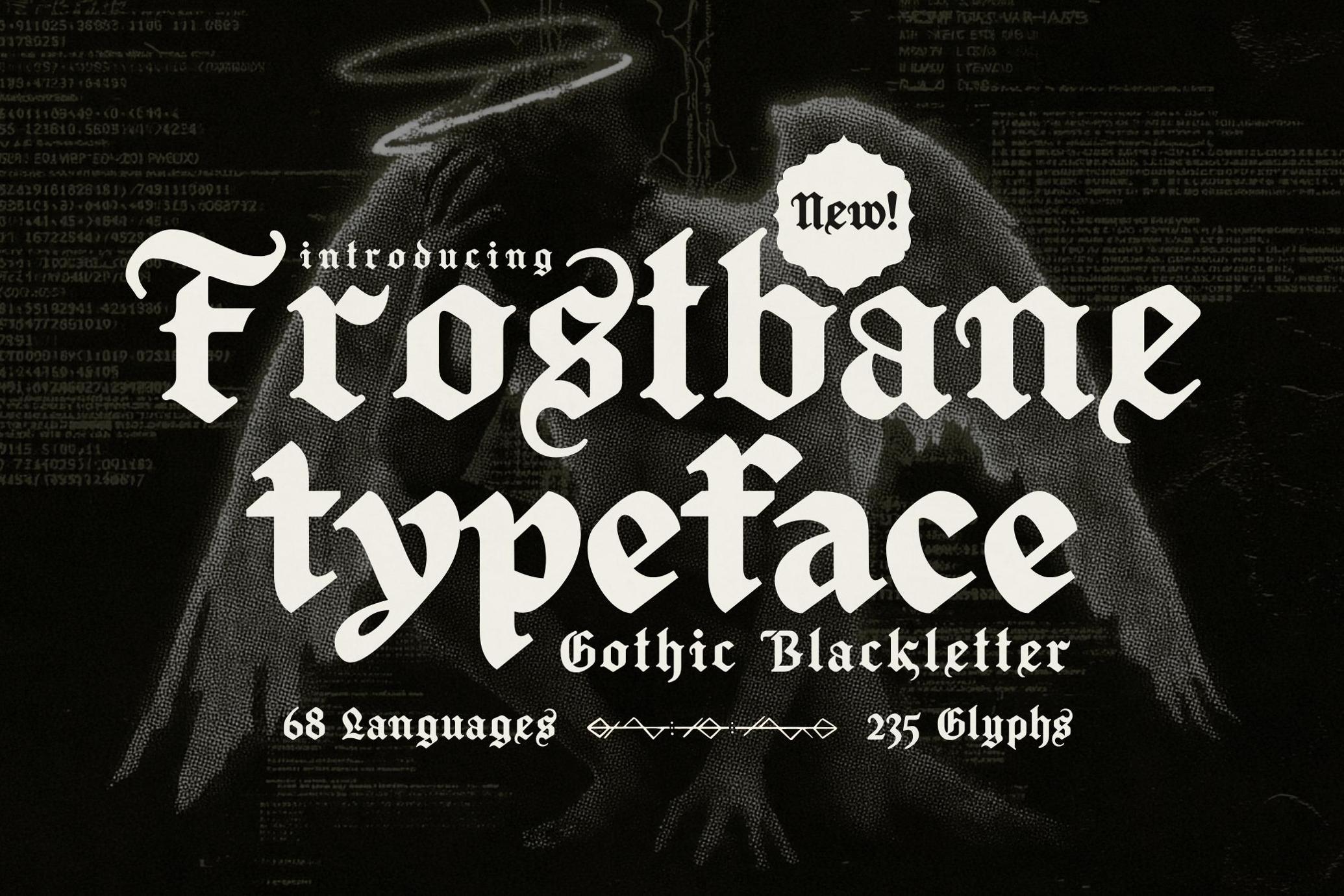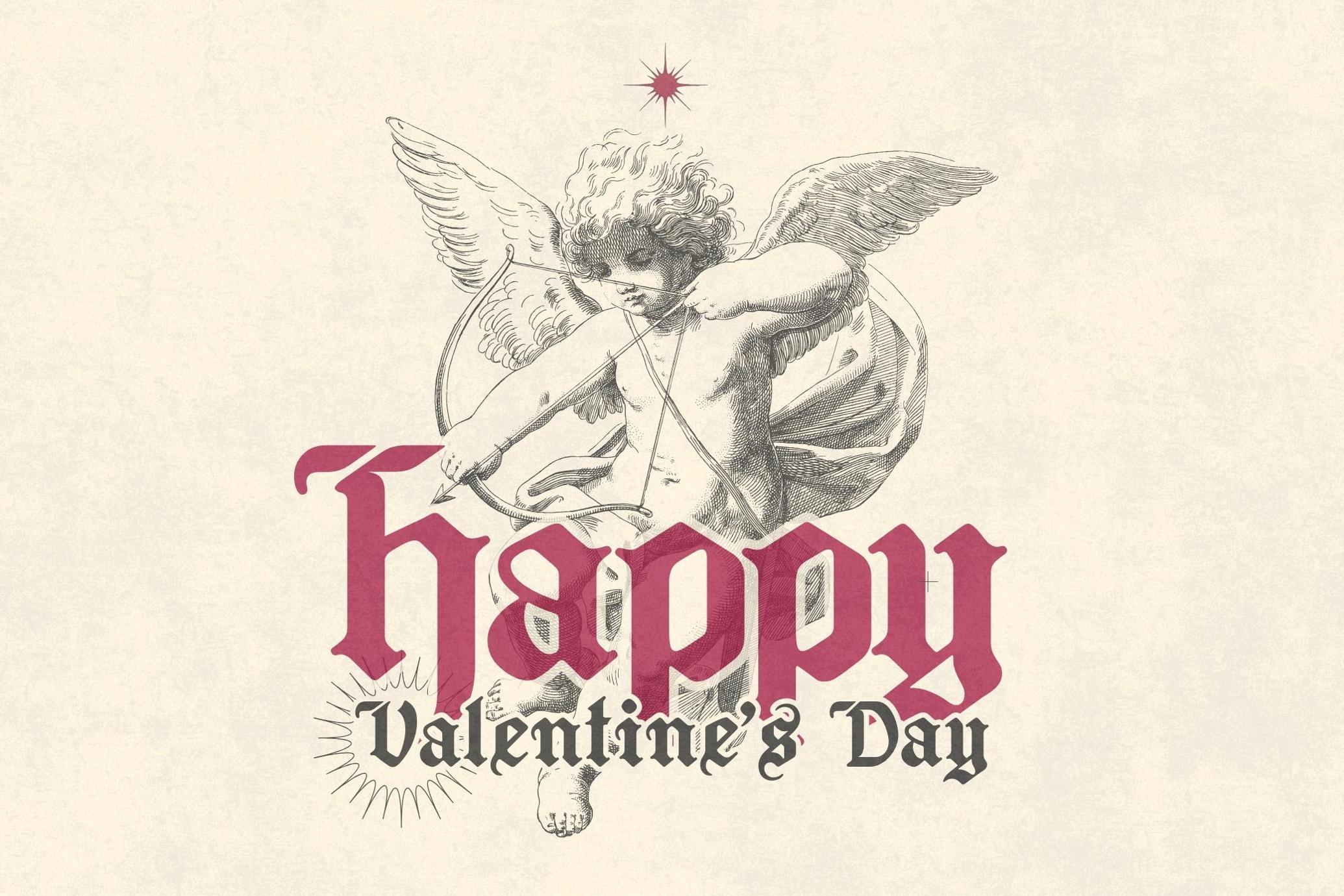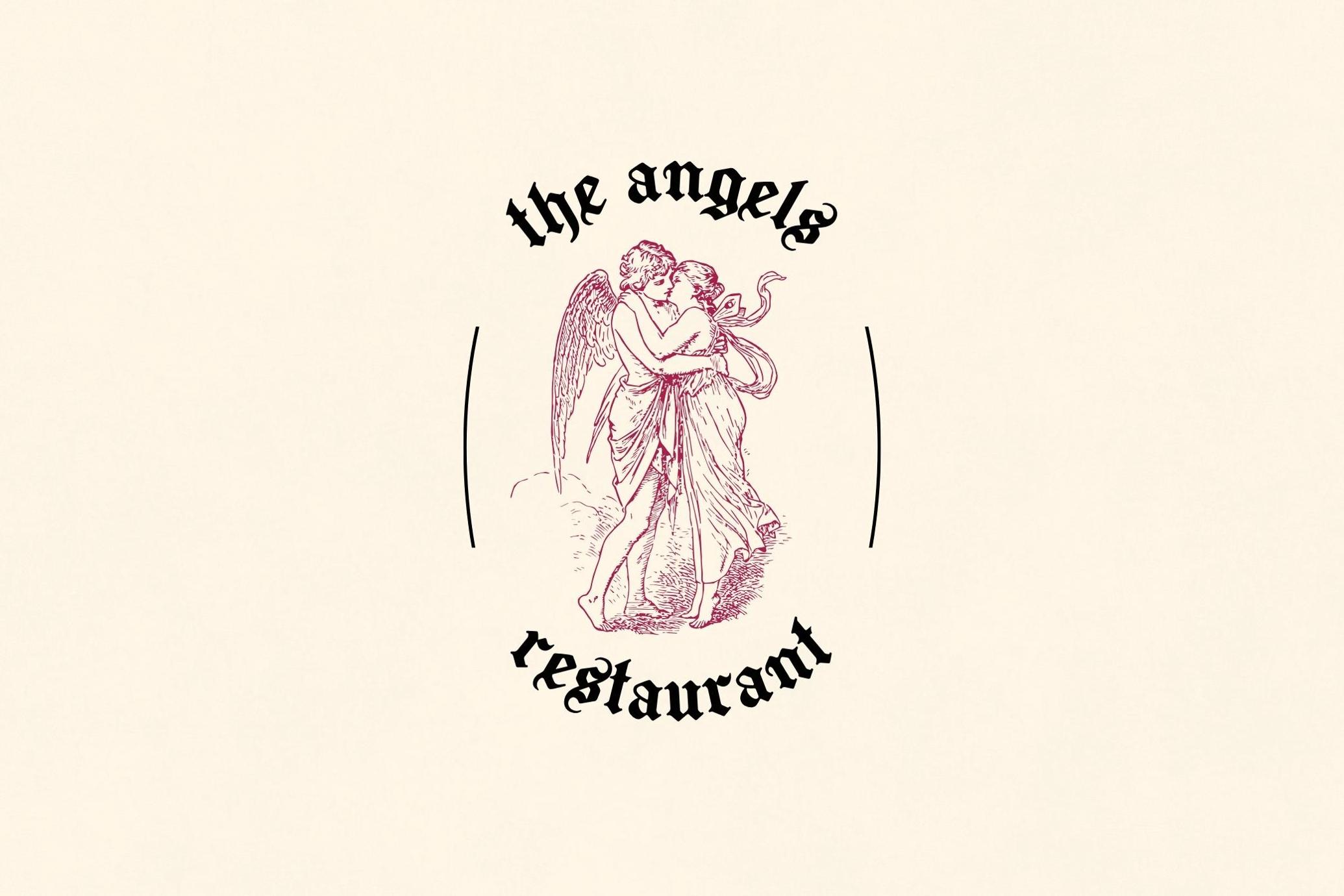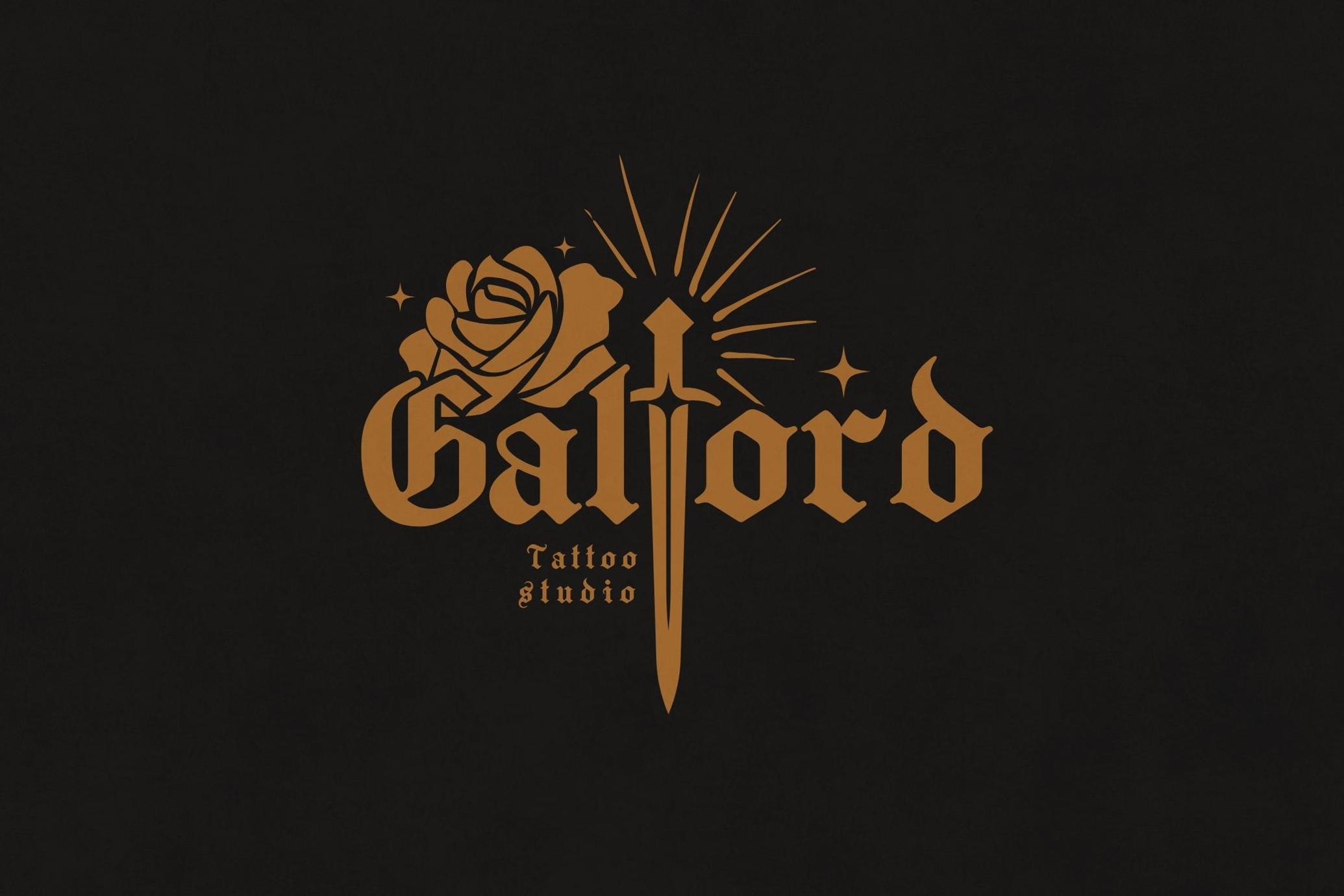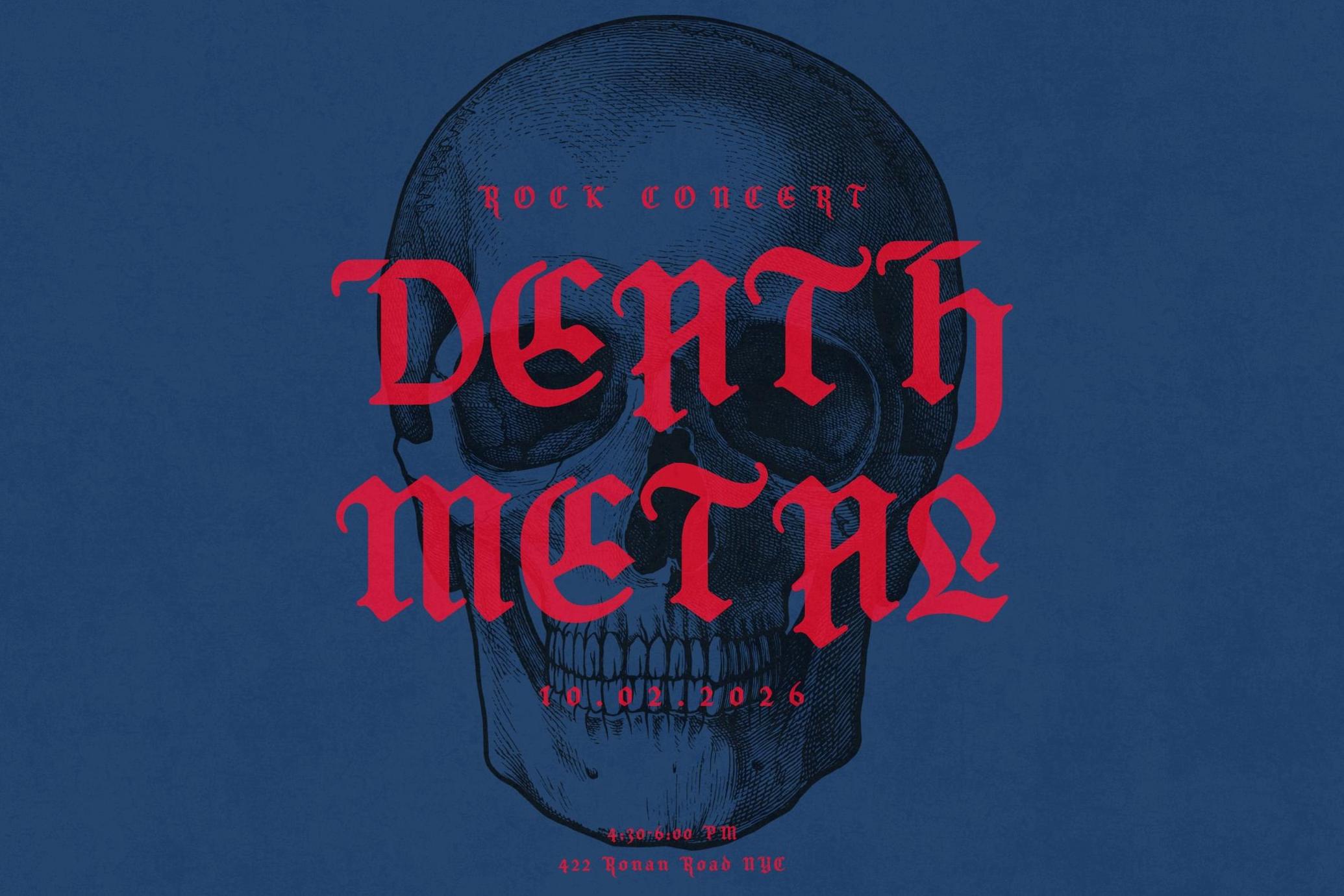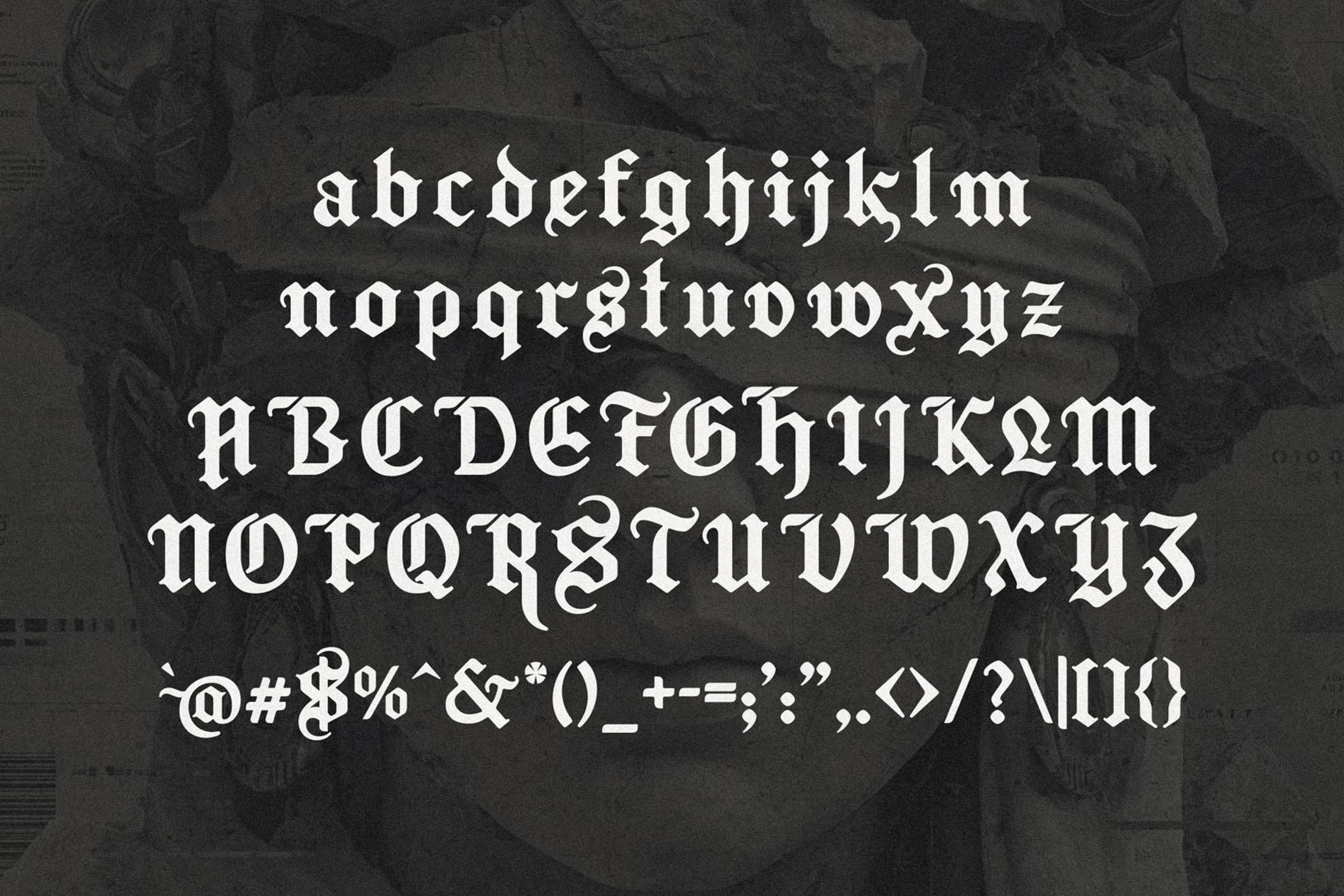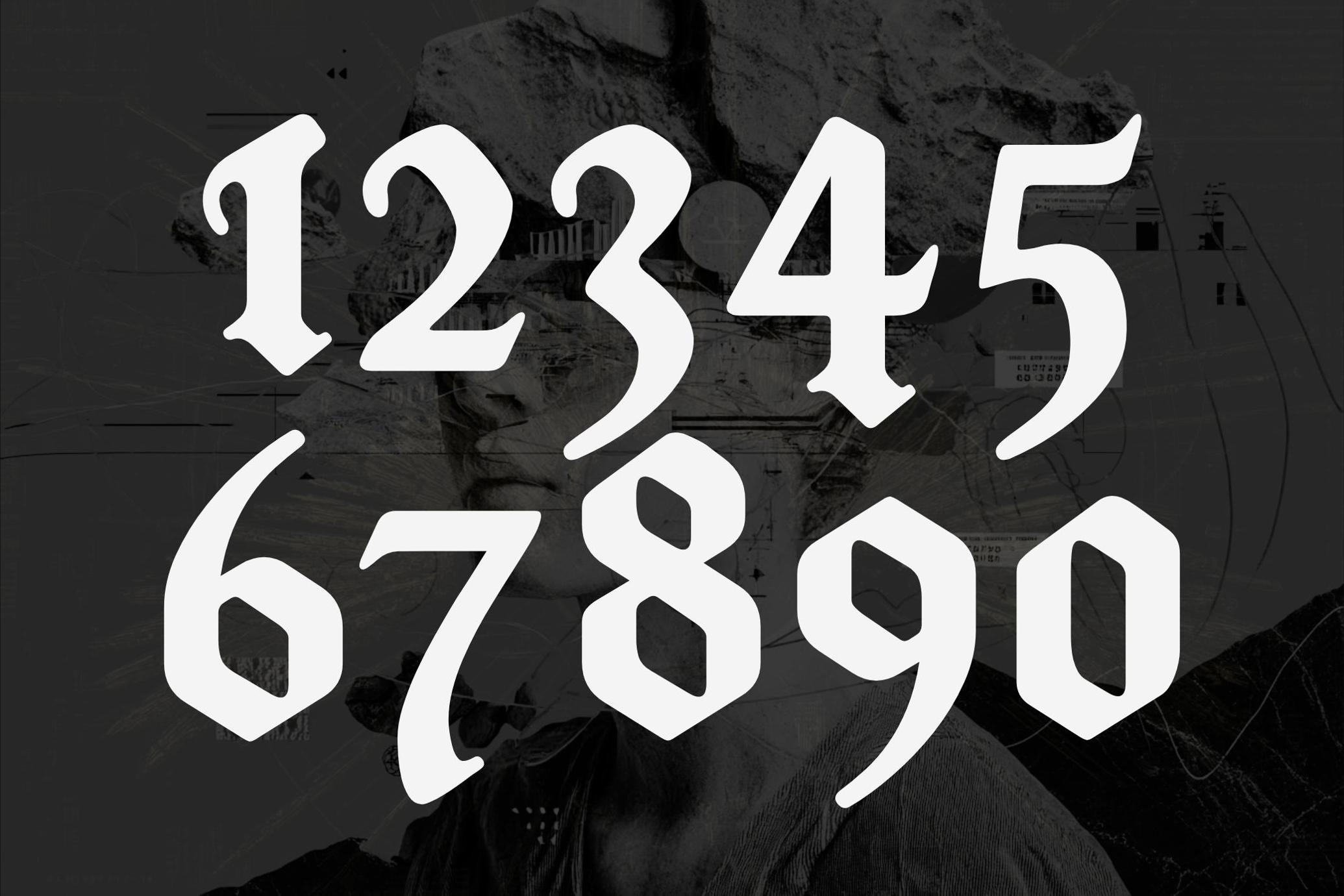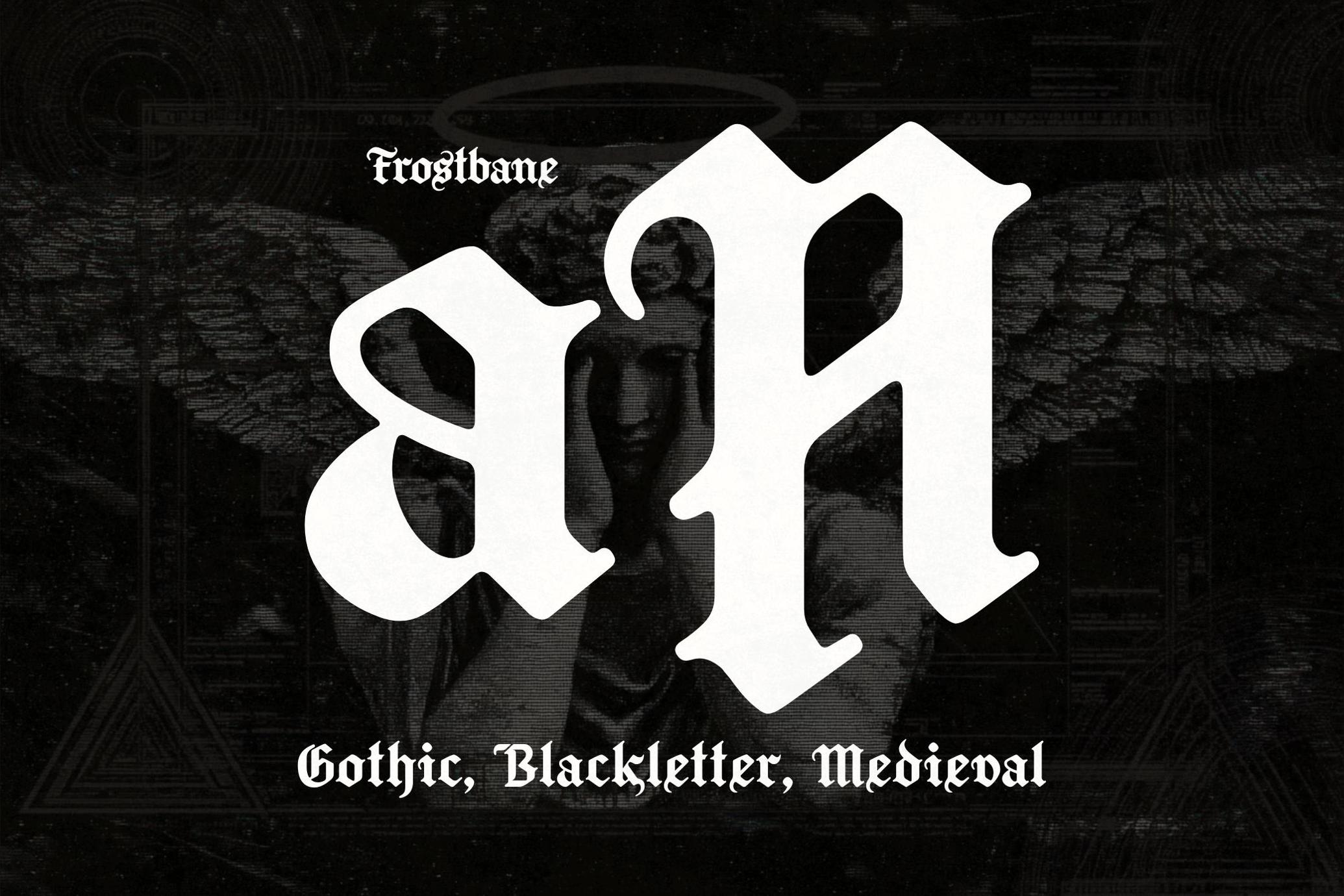
Frostbane - Gothic Blackletter Typeface
Unleash the mystique of the past with Frostbane, a breathtaking gothic blackletter typeface that captures the chilling elegance of ancient English manuscripts. Dark, ornate, and full of historical character, Frostbane was forged to evoke a sense of medieval magic, mystery, and timelessness.
With 235 glyphs and support for 68 languages, Frostbane is more than just beautiful, it’s versatile and powerful. Whether you're crafting fantasy book covers, band logos, event posters, or mystical branding, this typeface makes an unforgettable impact.
From illuminated scrolls to cryptic titles, Frostbane carries the weight of centuries with it. Inspired by the intricate hand-drawn calligraphy of Gothic Europe, this font is ideal for any project that needs to feel ancient, regal, and commanding. It’s bold. It’s ornate. And it’s absolutely spellbinding in any setting.